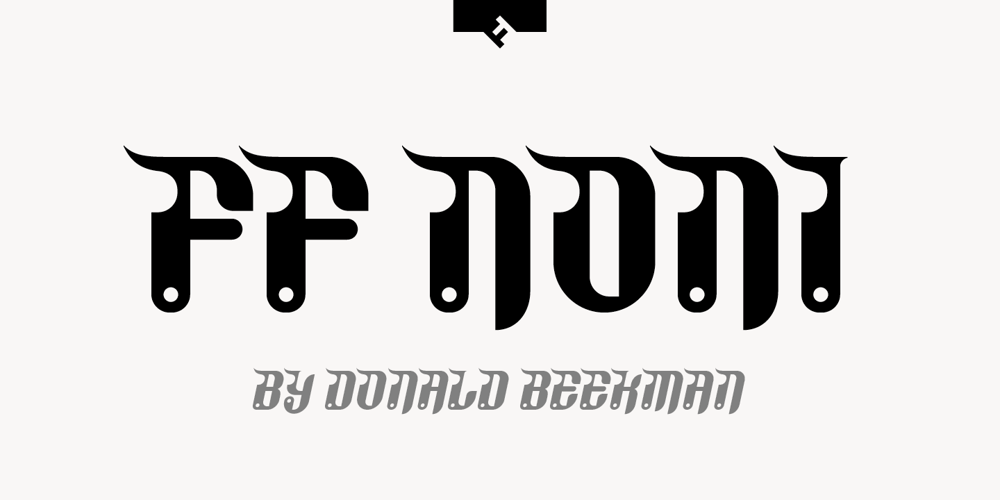
FF Noni Font Family was designed by Donald Beekman and published by FontFont. FF Noni contains 4 styles and family package options. Dutch type designer Donald Beekman created this display FontFont in 2000. The family contains 4 weights and is ideally suited for festive occasions, film and tv, music and nightlife, poster and billboards as well as software and gaming. FF Noni provides advanced typographical support with features such as ligatures. It comes with proportional lining figures.